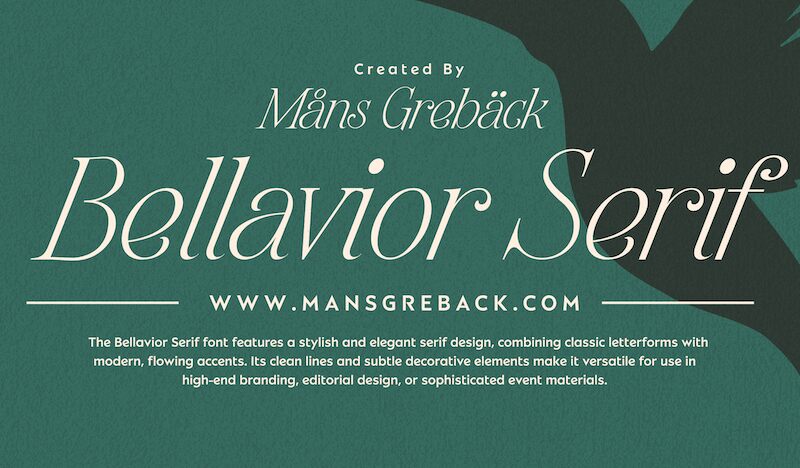
Bellavoir Serif font by Mans Greback is a free serif font with a decorative flair, classic aesthetic, and formal atmosphere. The elegant and sophisticated typeface features refined curves that create a classy overall look. It’s designed with a light weight which gives off a clean feel often desired in larger volumes of text.
Choose Bellavoir for your books, magazines, wedding invitations, business cards, websites titles or URLs. Showcase this timeless serif type on special product branding like fragrance packaging or wine labels. In addition to these uses, the font also suits quotes and logo designs quite perfectly.